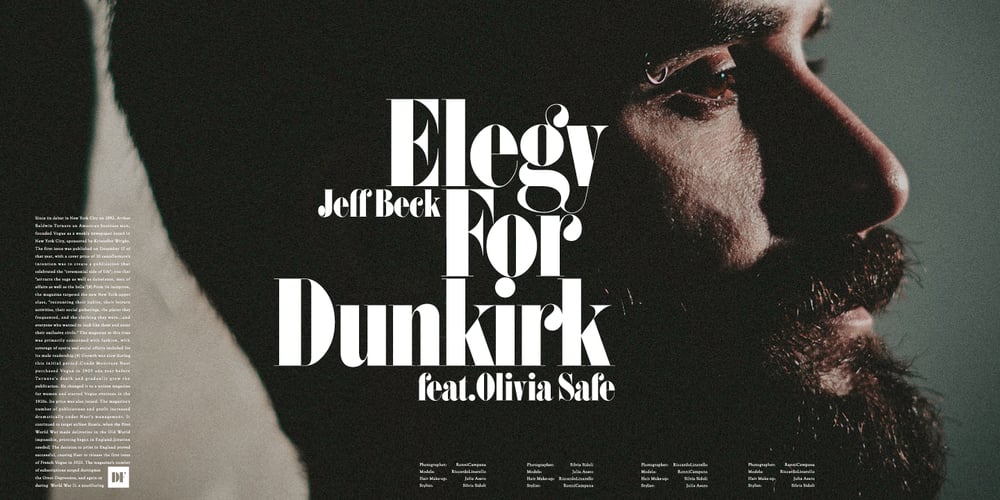
Fau Fau
Fau Fau font
Fau Fau Font Family was designed by Shin Oka and published by Daylight Fonts. Fau Fau contains 1 styles and family package options. This is a groovy, modern Bodoni with a strong body and very subtle, beautiful lines.It will make your typography fresher and more impactful!